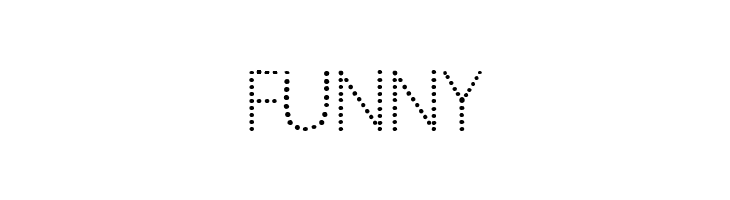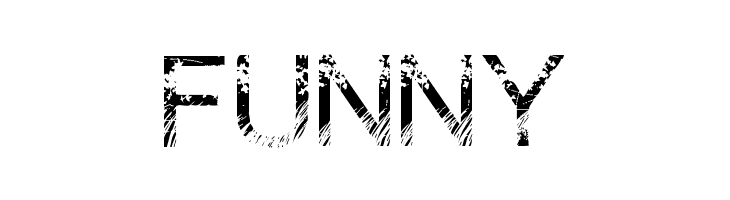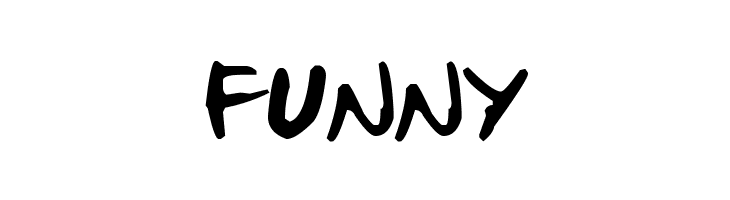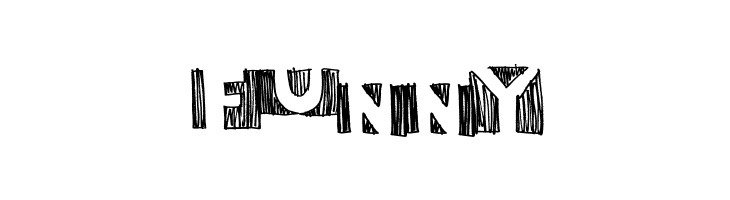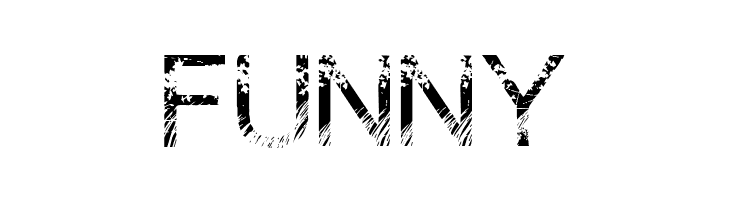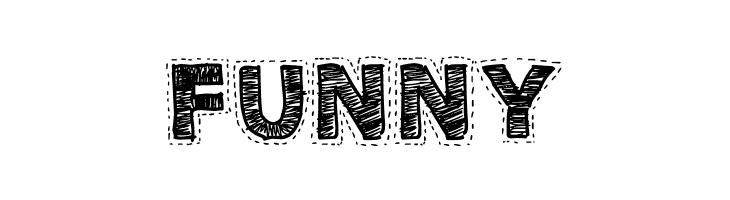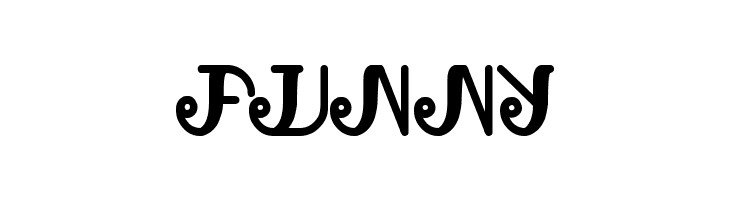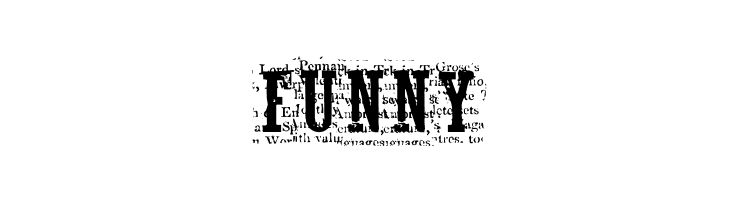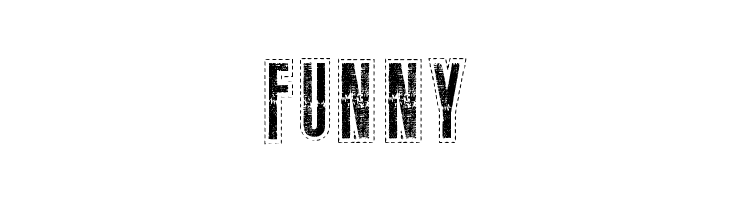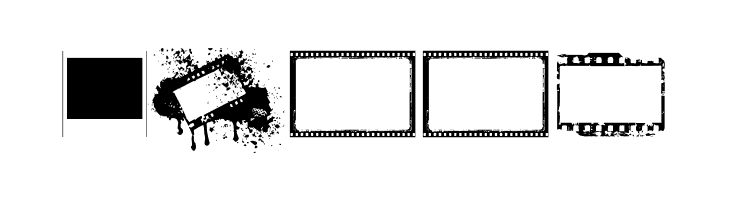
A modern, dotted italic font with a digital aesthetic.
A dot-based, grid-like font with a digital and futuristic style.
A bold, vintage serif font with dramatic strokes and sharp serifs.
A bold, angular font with a geometric and energetic style.
A dotted font ideal for educational and playful design projects.
A modern, clean sans-serif font with uniform strokes and excellent readability.
An ornate and decorative font with elegant swirls and medium contrast.
A bold, brush-style font with a natural, handwritten appearance.
A textured, nature-inspired font with a rustic and organic feel.
A rugged, textured font with a natural, handcrafted appearance.
A bold, decorative font with playful, swirling embellishments.
A bold, decorative font with a playful, pipe-like design.
A modern, geometric font with clean lines and rounded edges, perfect for digital use.
A modern, geometric sans-serif font with clean lines and uniform stroke width.
A bold, distressed font with a grunge texture and rugged edges.
A bold, distressed font with a gritty, textured appearance.
A playful, embroidered-style font with a bold, textured appearance.
A bold, decorative font with a distressed, vintage texture and dotted outline.
A bold, decorative font with geometric shapes and intricate, hand-drawn patterns.
A decorative font styled like film negatives, perfect for vintage or cinematic themes.
A bold, 3D italic font with outlined characters and a futuristic style.
Bold, geometric font with a 3D effect and strong visual impact.
A bold, geometric font with sharp angles and a strong, modern presence.
A bold, expanded font with geometric shapes and sharp angles, perfect for impactful designs.
A bold, expanded, and italic font with a dynamic, angular design.
A bold, italicized font with sharp angles and a dynamic presence.
A bold, condensed font with a geometric and modern design.
A bold, condensed italic font with a dynamic and futuristic style.
A bold, expanded font with a geometric and industrial style.
Bold, italic, and expanded font with a dynamic and modern style.